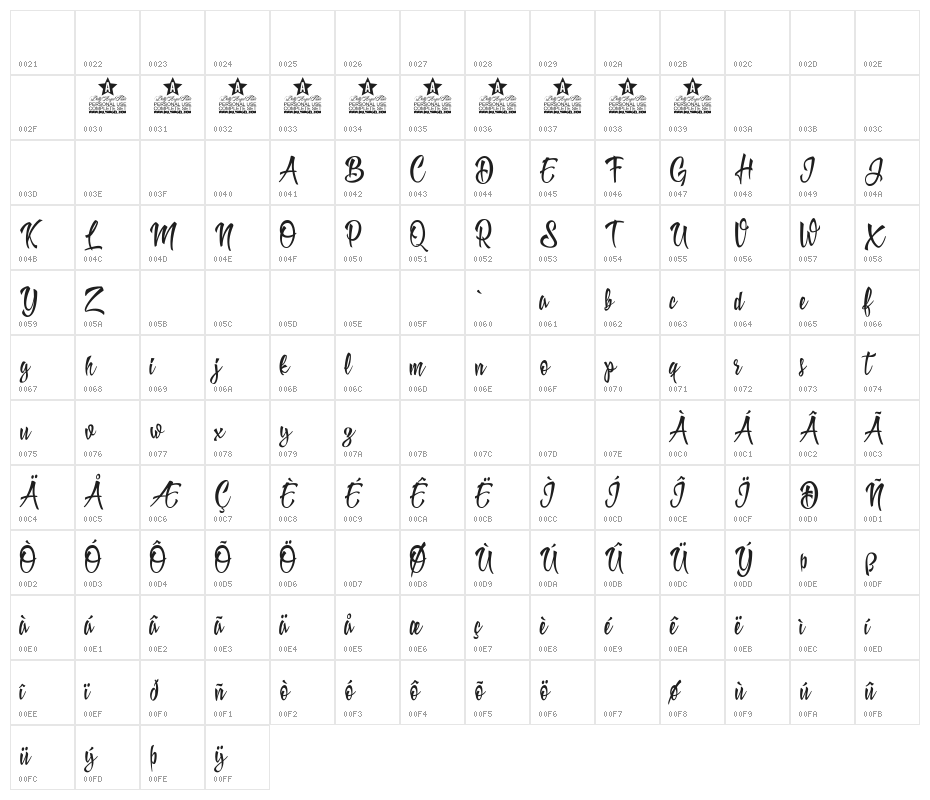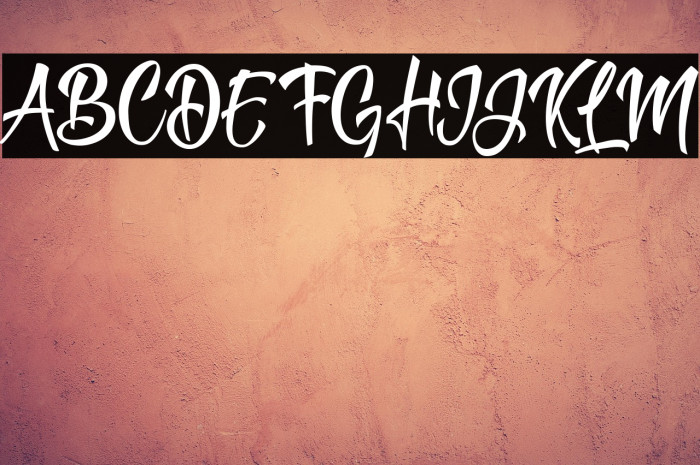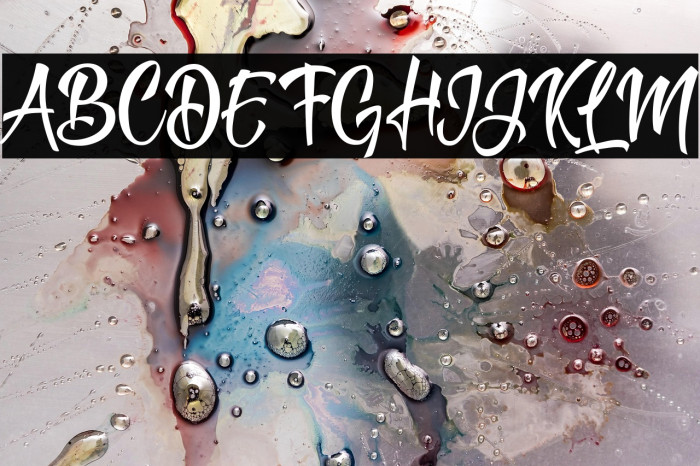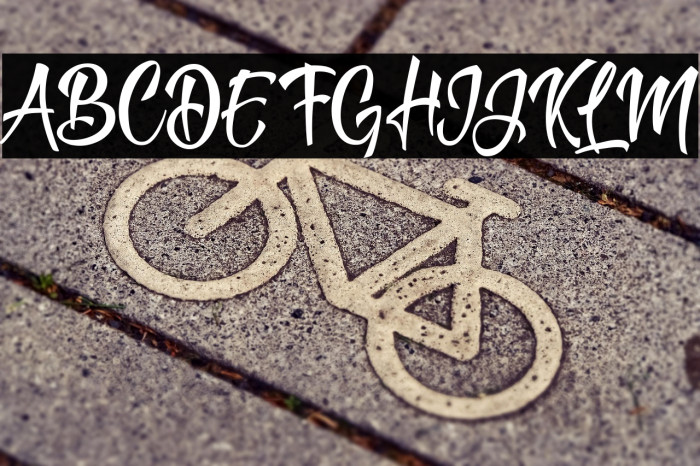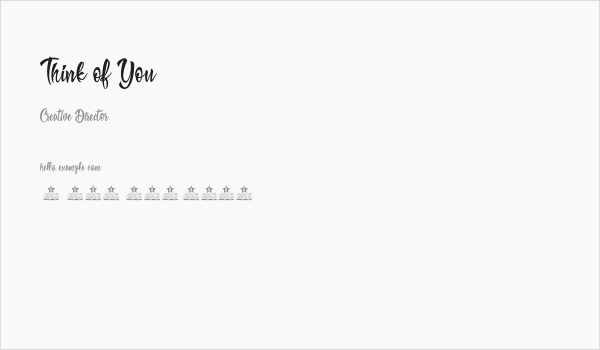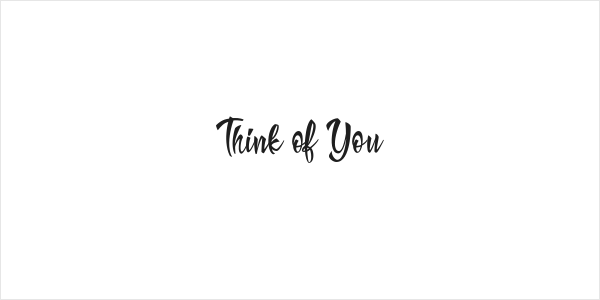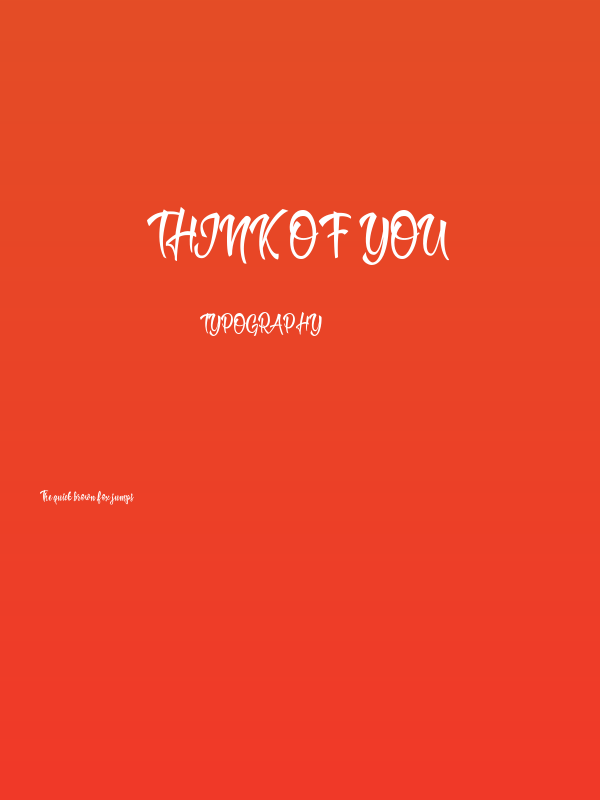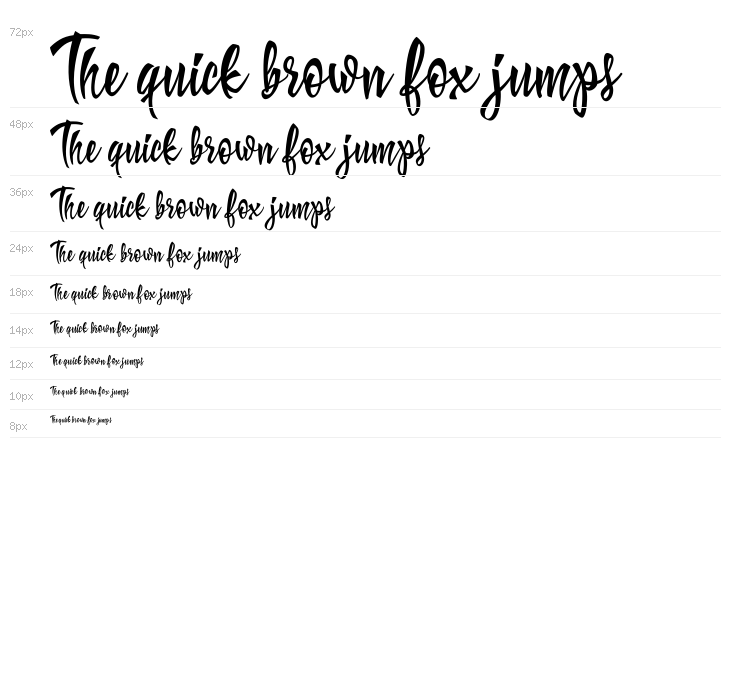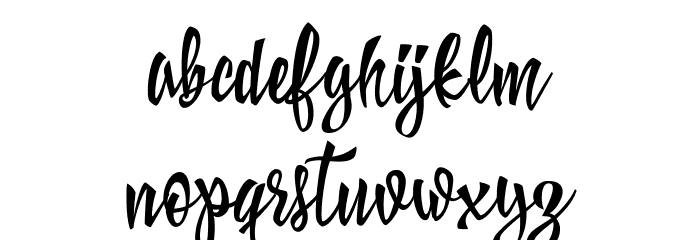
Think of You Font
Think of You Description
This font features a dynamic and flowing script style, characterized by its elegant and cursive letterforms. The uppercase letters are bold and sweeping, with a distinct flair that adds a sense of movement and grace. The lowercase letters maintain a consistent flow, complementing the uppercase with their smooth curves and loops. The font's overall appearance is both sophisticated and approachable, making it suitable for a variety of creative applications. Its unique style is enhanced by the slight slant and varying stroke widths, which add depth and visual interest.